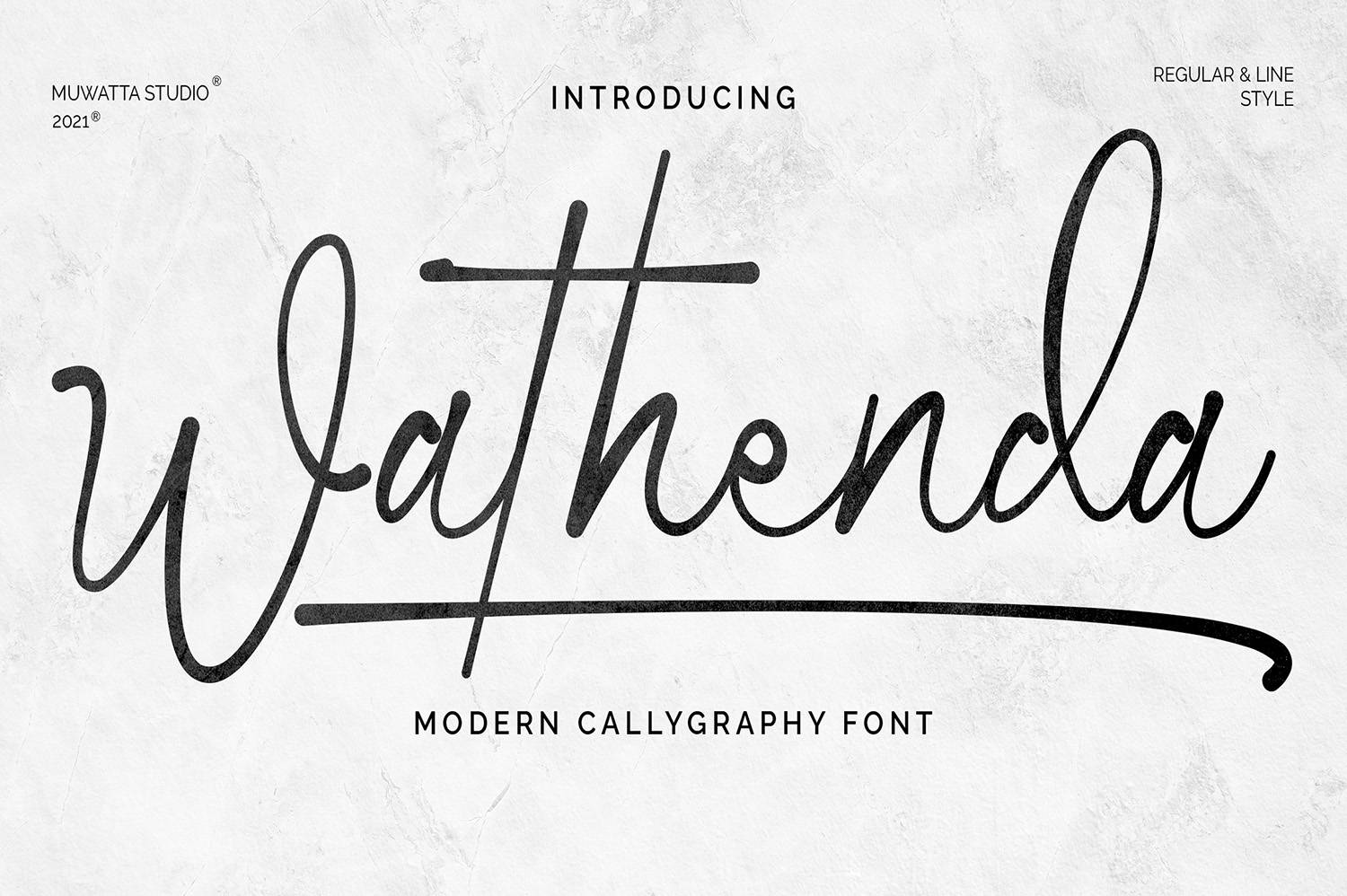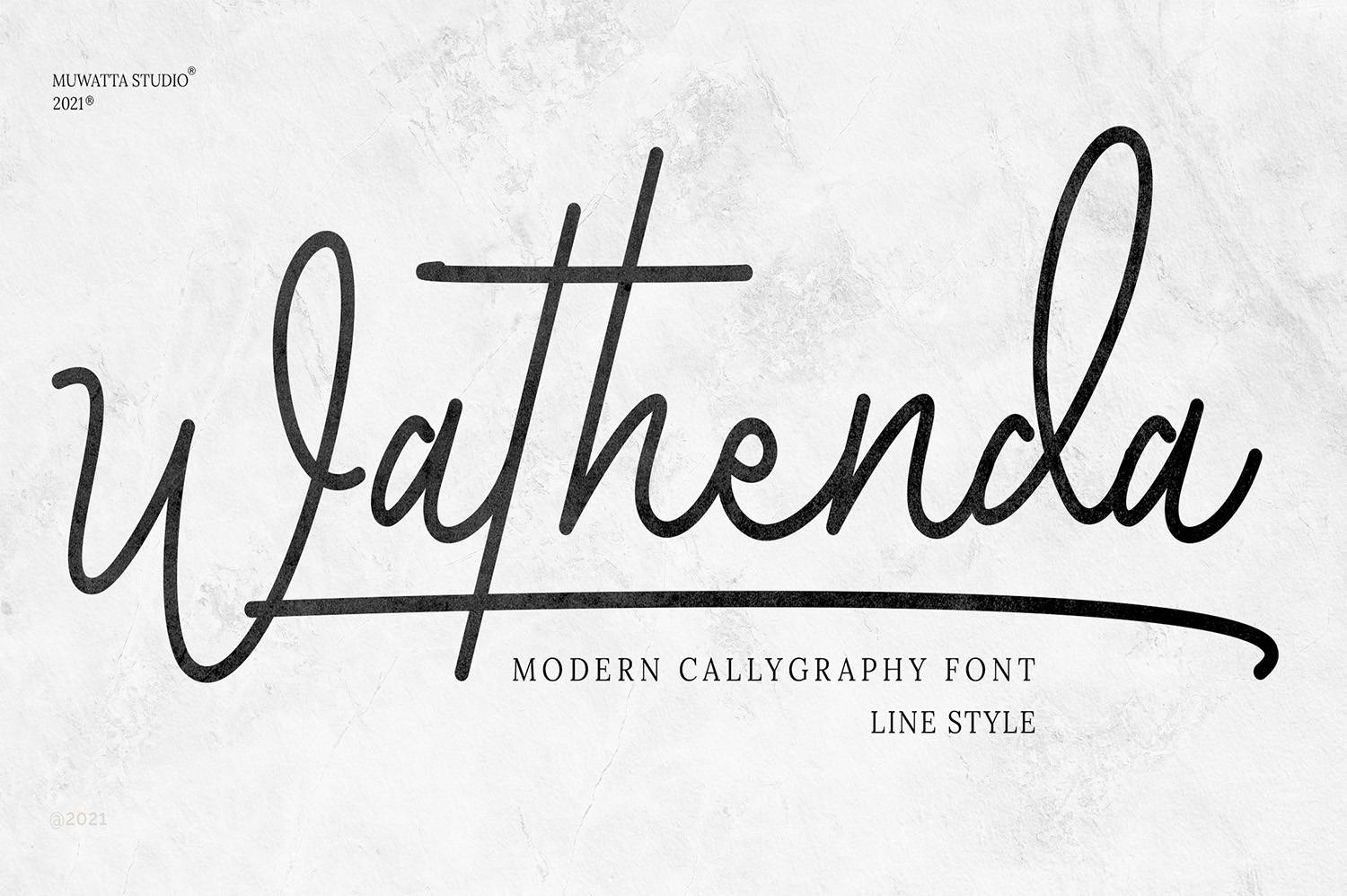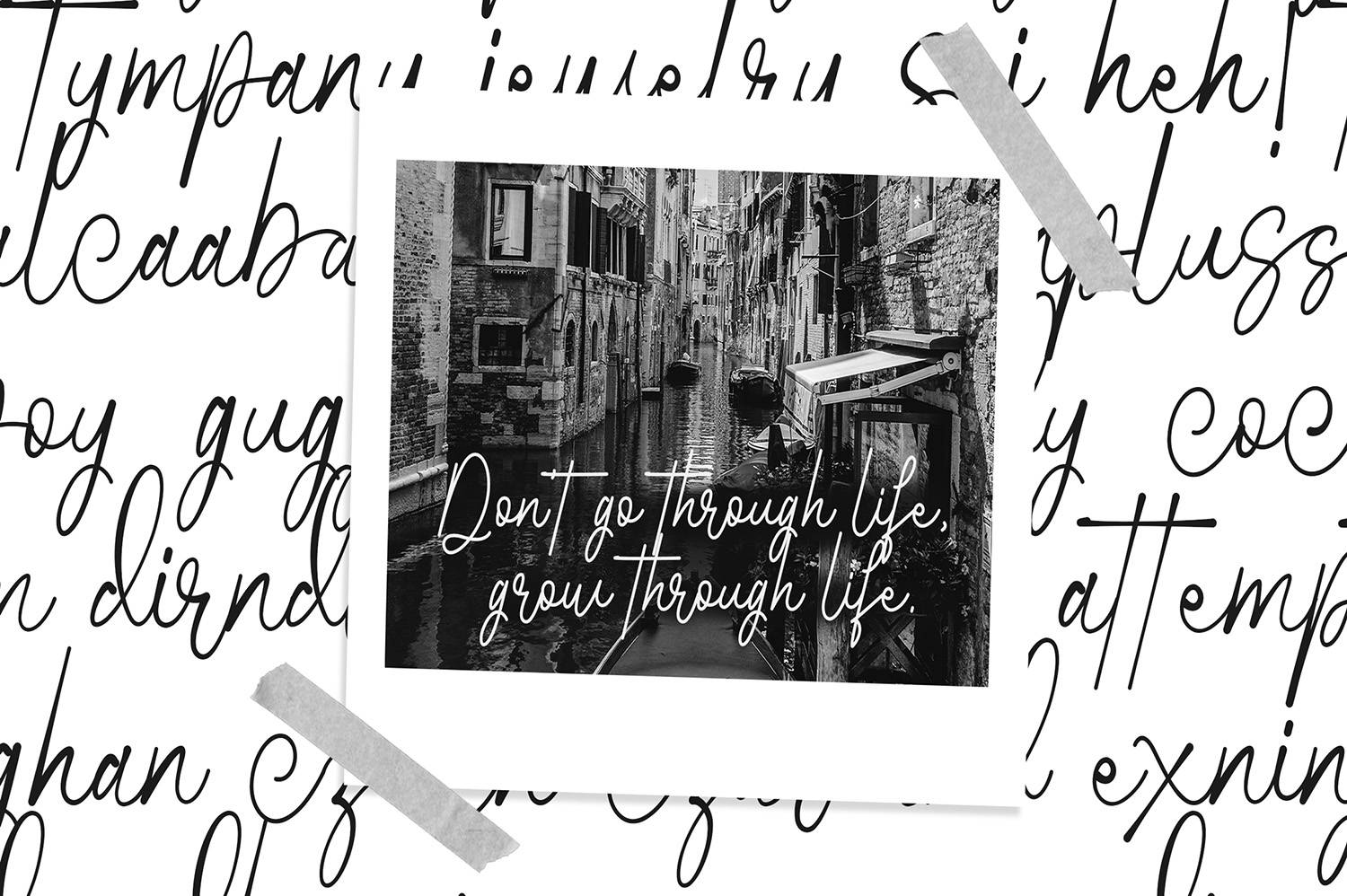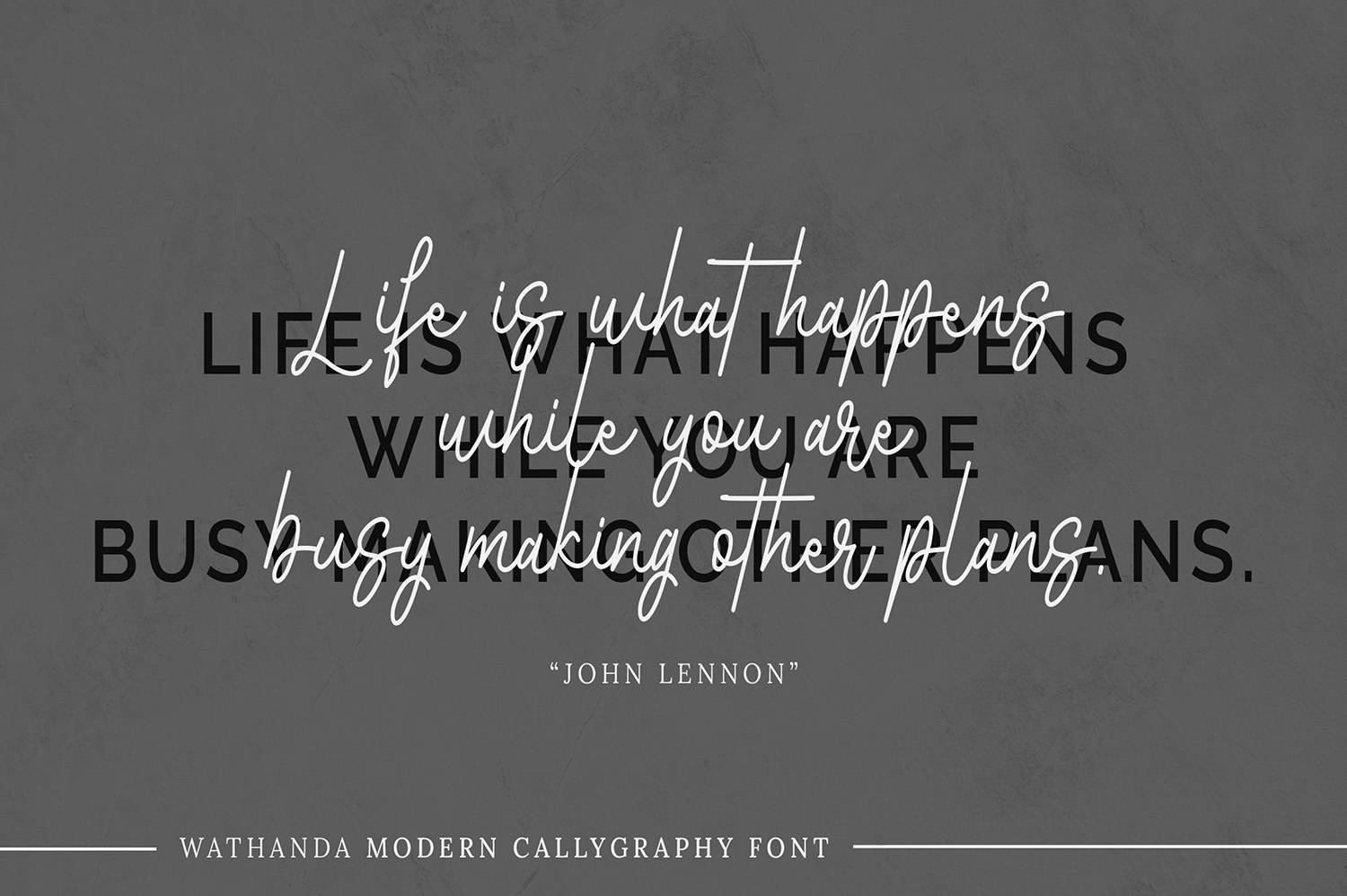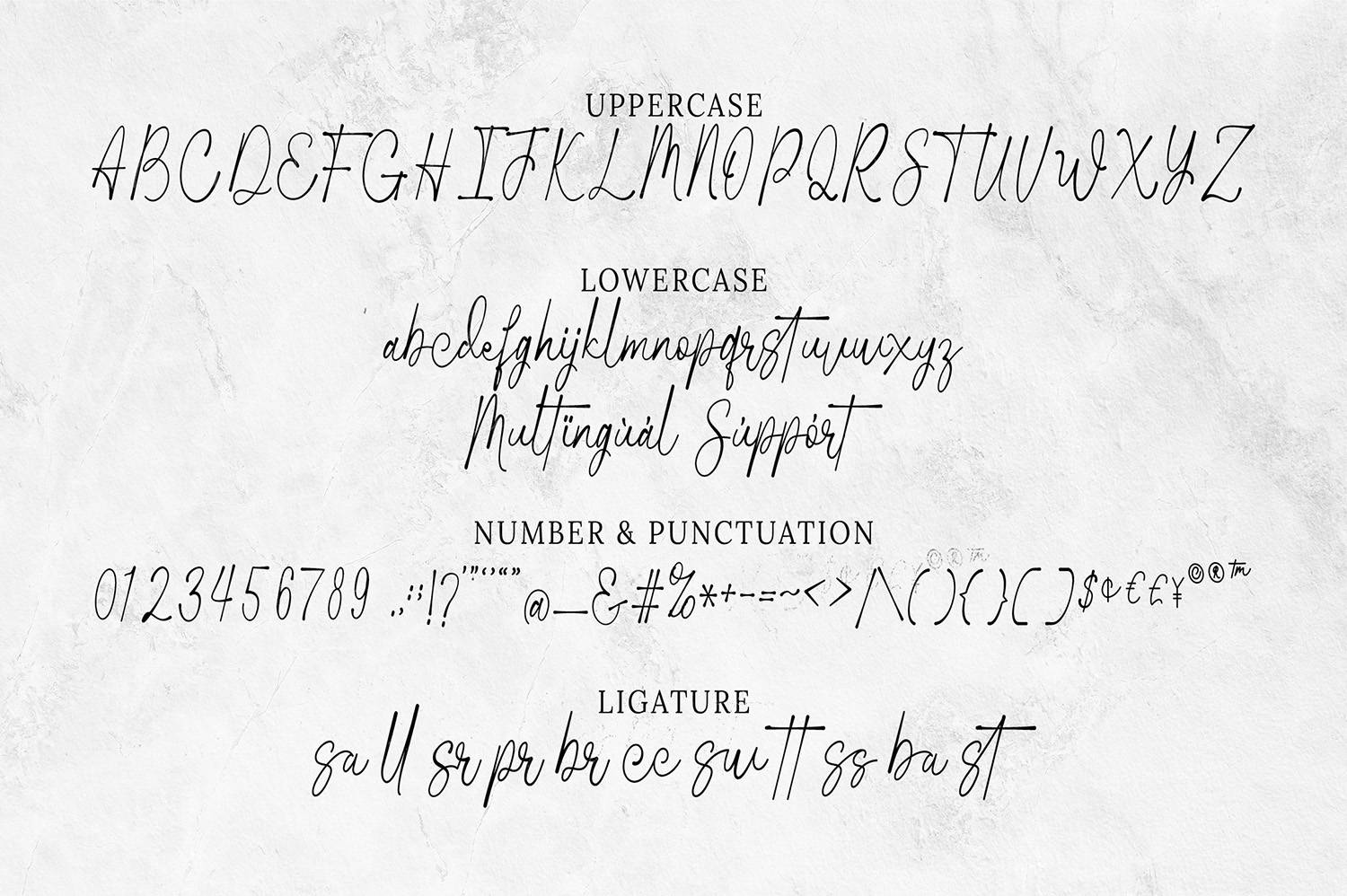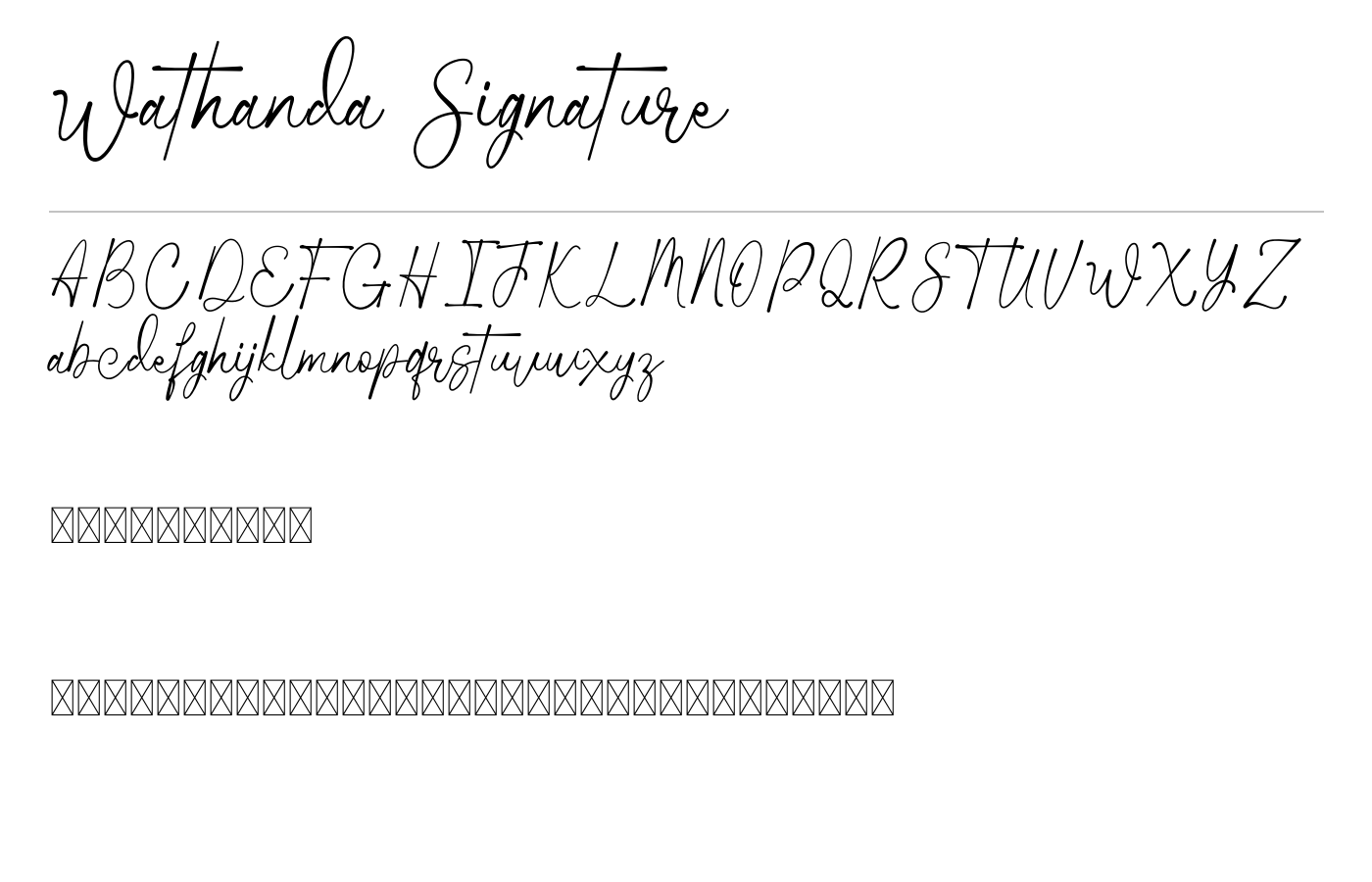
Wathenda is a delicate, script-style font that mimics elegant, handwritten signatures with its thin, flowing strokes and subtle variations in line weight. Its tall, narrow letterforms and cursive connections give it a refined and personal feel, making it ideal for branding, invitations, and any design that calls for a sophisticated yet approachable touch. This font works beautifully in settings where a stylish, intimate impression is desired, such as luxury packaging, fashion logos, or wedding stationery.
Wathenda Font
About Wathenda Font
| Font family | Wathenda Font |
| Designer | Bayu Wibisono |
| Trademark | Muwatta Studio |